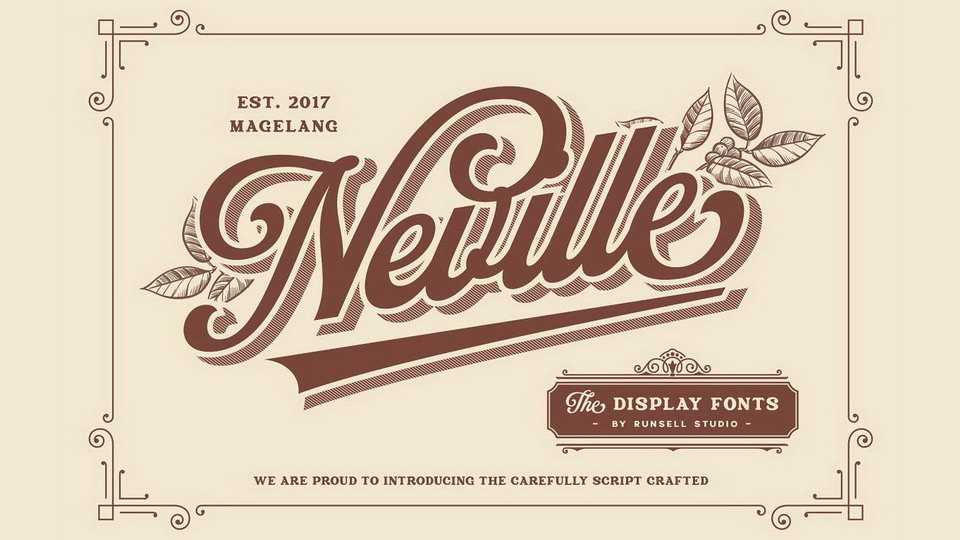
Download Neville font, a vintage script, inspired by beautiful lettering in old label. The Neville matches applies in some designs such as the logotype, brand, packaging, branding, quotes, business cards and more custom design.
Designer: Runsell Studio